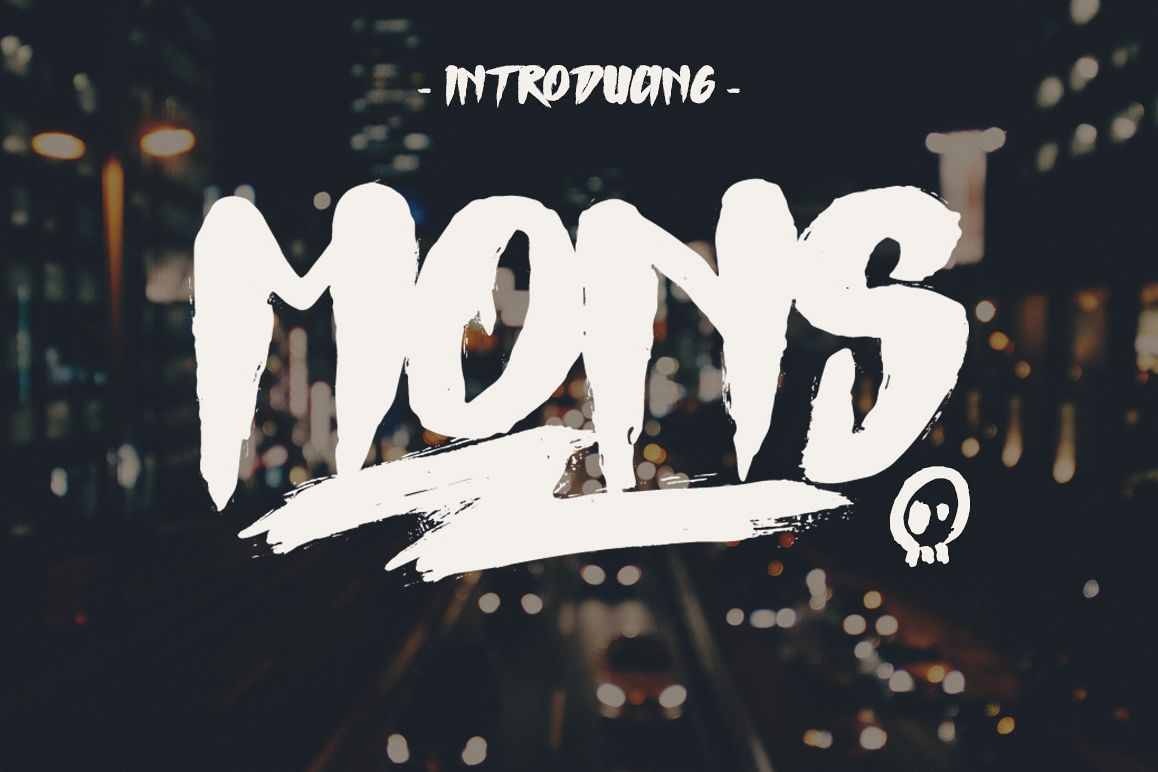
Mons Typeface
MONS-Regular
Mons Typeface here, hopefully Mons Typeface can make it easier to convey the message in your design. Use for awesome display, labeling, clothing, movie sceen, movie title, gigs, album covers, logos, and much more.